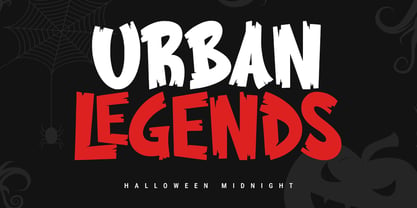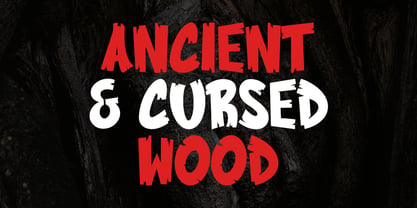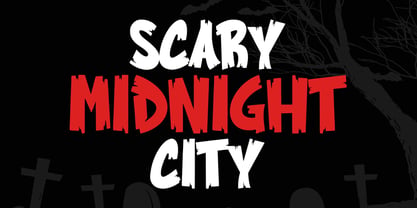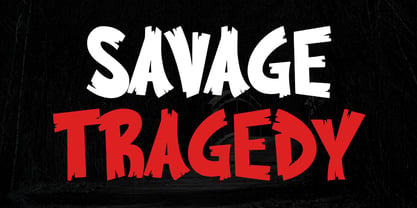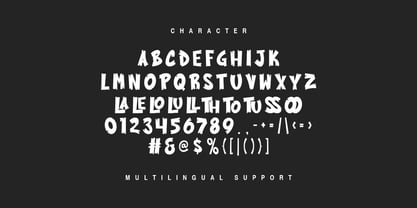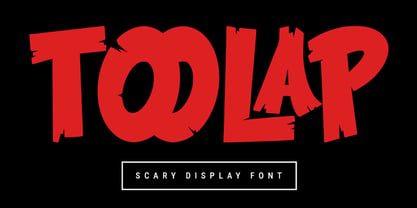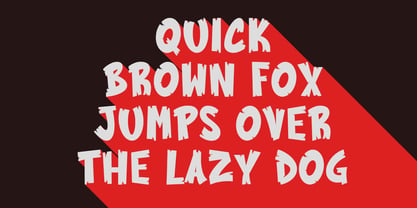
MC Toolap
by Maulana Creative
The MC Toolap Font Family was designed by Gilang Maulana and published by Maulana Creative. MC Toolap contains 1 styles. More about this family
Toolap scary display font is a bold and haunting typeface designed to bring a chilling atmosphere to your creative projects. With sharp edges, eerie curves, and a dramatic style, this font is perfect for horror-themed designs, Halloween posters, spooky invitations, thriller movie titles, and dark branding concepts. Its eye-catching display style makes it stand out, giving your work a terrifying yet artistic touch. Whether you’re creating creepy social media graphics, haunted house flyers, or gothic merchandise, Toolap scary display font will instantly set the mood and grab attention.
Designers: Gilang Maulana
Foundry: Maulana Creative